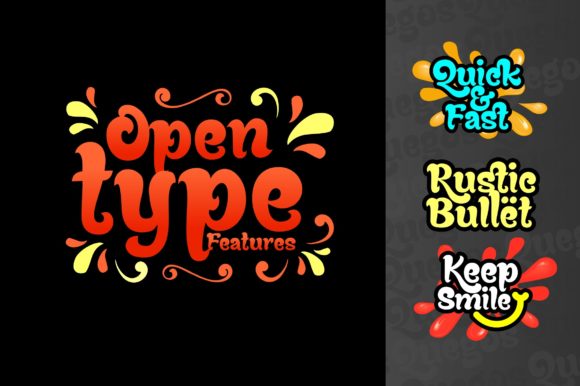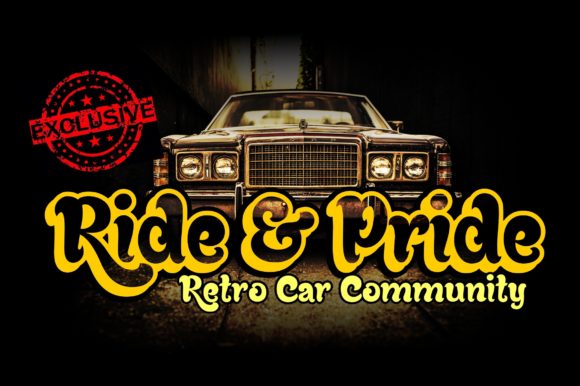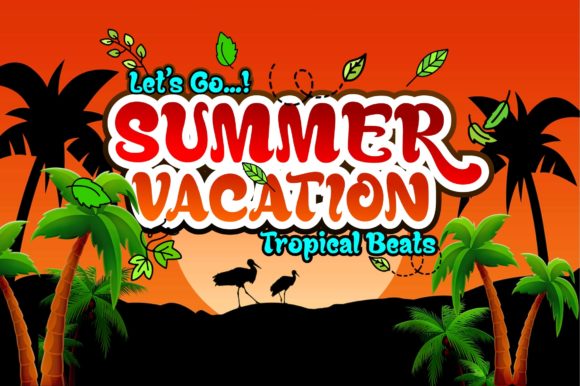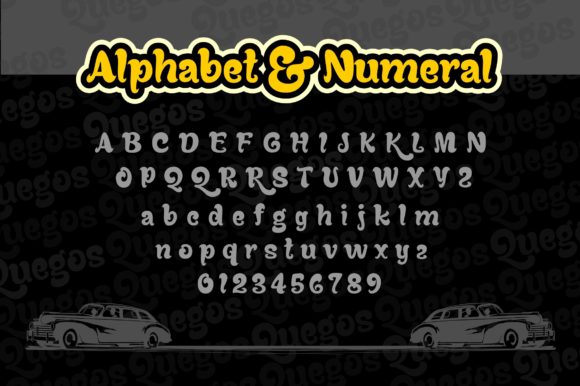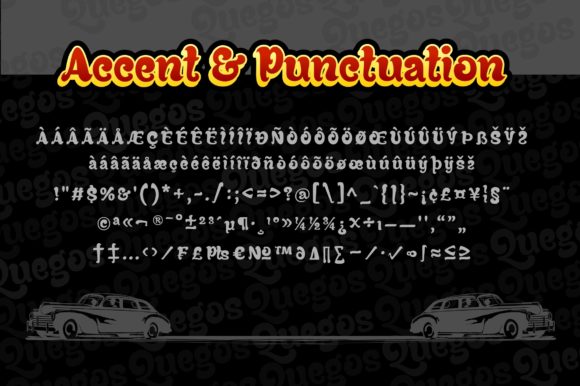
Introduction to Quegos Font
Remember that moment when you’re brainstorming a creative project and the perfect font just seems to elude you? You envision a bold, eye-catching design that truly sets your work apart, but you just can’t quite find the right fit. Well, put your creative anxieties to rest, because we’ve got just the thing – the Quegos Font.
With its retro styled and graffiti-inspired design, the Quegos Font is a game-changer for any designer looking to add some high-quality flair to their work. Whether you’re working on a letterhead, title, or stationery, this versatile font is sure to bring your creative vision to life. And the best part? It’s available as a free download, making it a valuable resource for designers on a budget.
Thanks to its transparent background, the Quegos Font is incredibly easy to work with, allowing you to seamlessly integrate it into your designs without any hassle. Whether you’re a seasoned pro or just starting out, this design resource is sure to become a trusted favorite in your toolkit.
Key Features of Quegos Font
- High-quality font design for creative projects, perfect for graphic designers and artists
- Unique, modern design aesthetic that can add a touch of sophistication to any creative project
Honest Review: Quegos Font
I recently stumbled upon the Quegos Font while searching for a unique design resource for a creative project. The free download was a pleasant surprise, and I was excited to give it a try.
The Quegos Font is a high-quality font that offers a transparent background, which makes it easy to layer over other design elements. I was impressed with the font’s versatility and the fact that it’s available for free.
- High-quality design: The Quegos Font is well-crafted and has a professional feel to it.
- Transparent background: This feature makes it easy to use the font in a variety of creative projects.
- Limited character set: The font only includes a limited number of characters, which may make it difficult to use for more complex projects.
- No variations: There are no different variations of the font available, which may limit its use in certain design contexts.
Overall, I was impressed with the Quegos Font and its potential for use in creative projects. However, its limitations may make it less suitable for more complex or professional design work.
Quegos Font
Quegos Font is a high-quality, versatile font perfect for your next creative project. It’s available for free download and can be easily integrated into various design applications.
Tips for Getting the Most Out of Quegos Font
For the best results, use Quegos Font with a transparent background to create a seamless design. You can also experiment with different font sizes and styles to add depth and visual interest to your project.
Quegos Font is ideal for use in branding, marketing materials, and digital products. Its clean and modern design makes it perfect for creating a professional and sophisticated look.
Alternatives to Quegos Font
Open Sans is a high-quality sans-serif font perfect for design projects requiring a clean and modern look. It is available for free download and suitable for both print and digital applications. This font is ideal for creative projects where transparency and readability are crucial. Compared to Quegos Font, Open Sans is more versatile and has a wider range of font sizes and styles.
Montserrat is a geometric sans-serif font with a urban feel. It is ideal for creative projects that require a bold and modern look. This font is available for free download and has a transparent background, making it perfect for design resources. Montserrat is similar to Quegos Font in its geometric design but has a more modern and edgy feel.